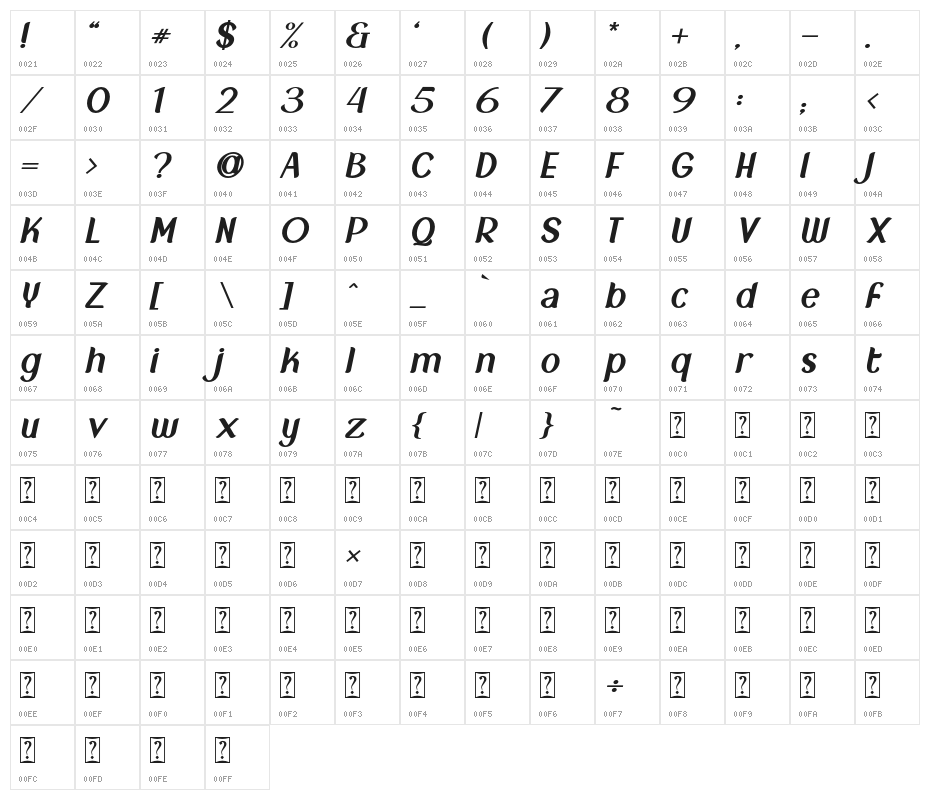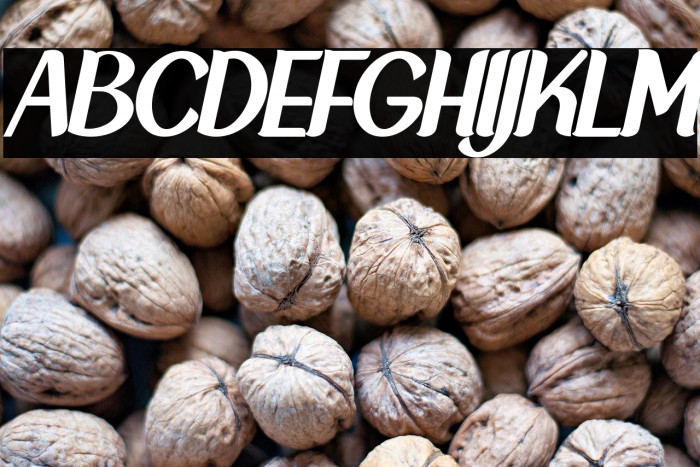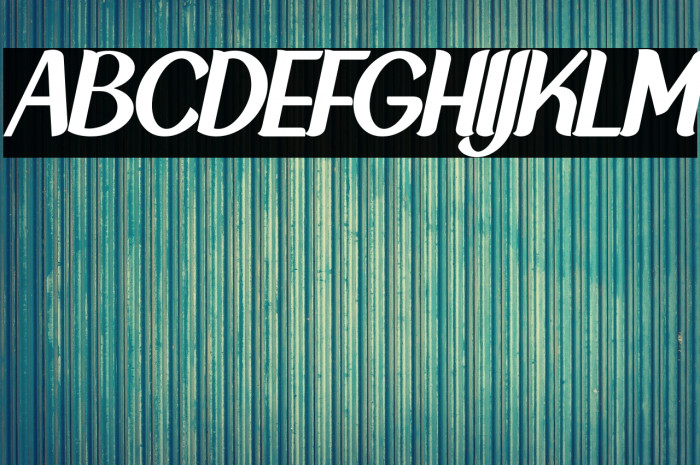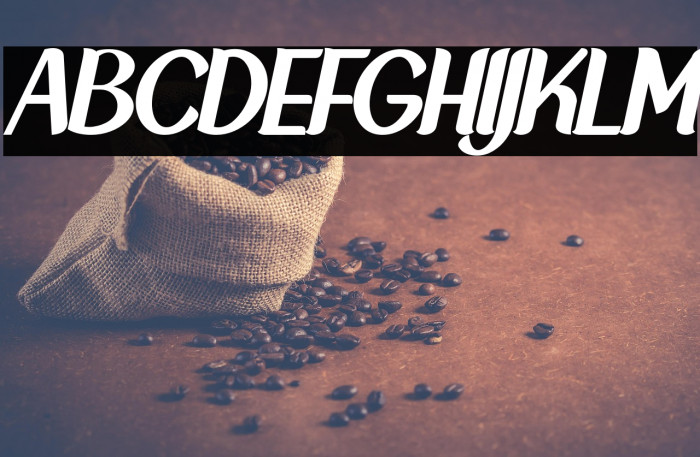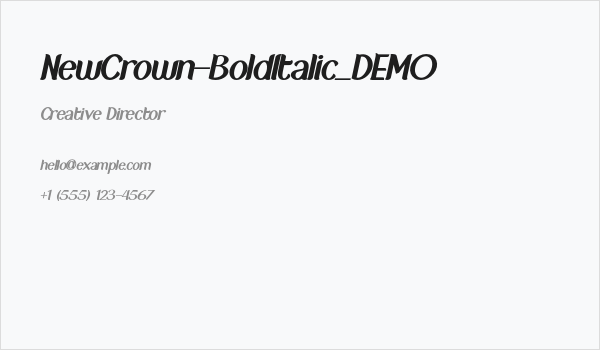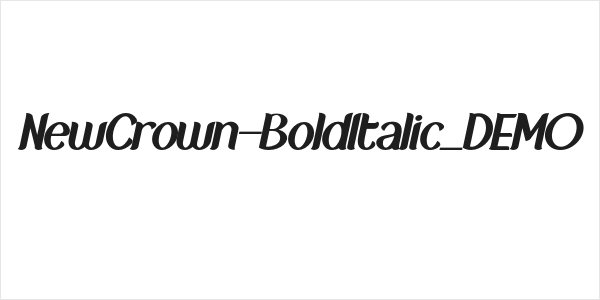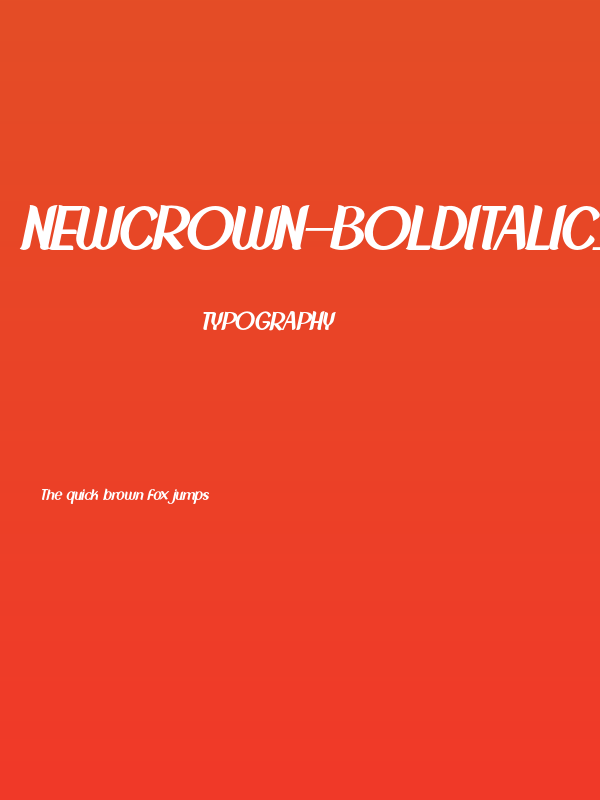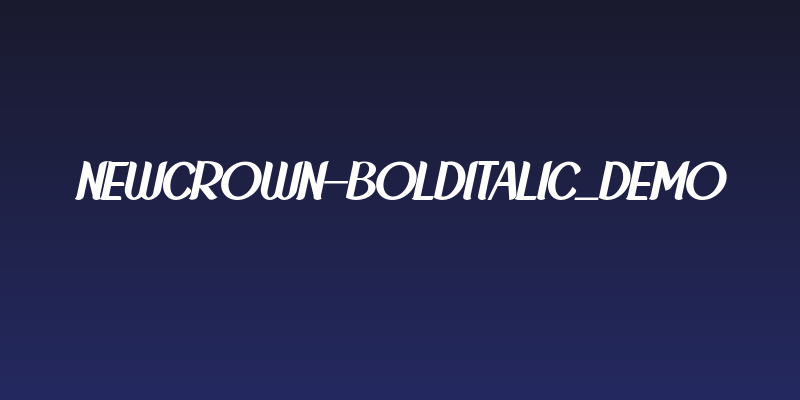
NewCrown-BoldItalic_DEMO Font
NewCrown-BoldItalic_DEMO Description
This font features a bold and italicized style, characterized by its dynamic and flowing letterforms. The uppercase letters exhibit a strong presence with slightly exaggerated curves, while the lowercase letters maintain a consistent and harmonious flow. The numerals are well-proportioned, complementing the overall aesthetic. Special characters are designed with a similar flair, ensuring uniformity across the typeface. The font's boldness and italic slant give it a sense of movement and energy, making it suitable for eye-catching designs.
| Proposed Projects | Ideal for branding, advertising, and editorial design where a bold statement is needed. |